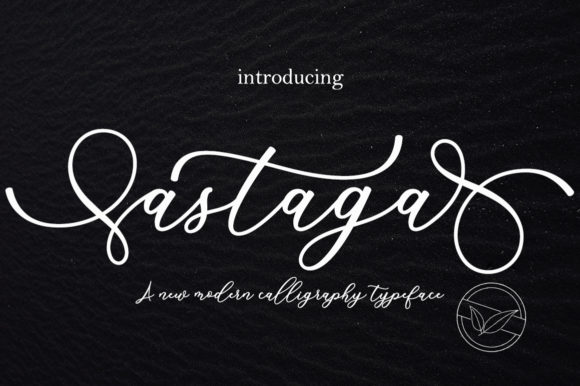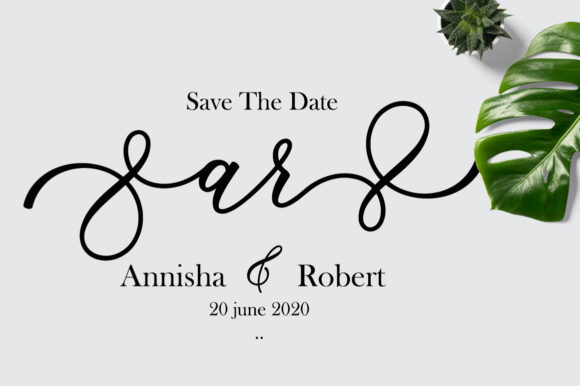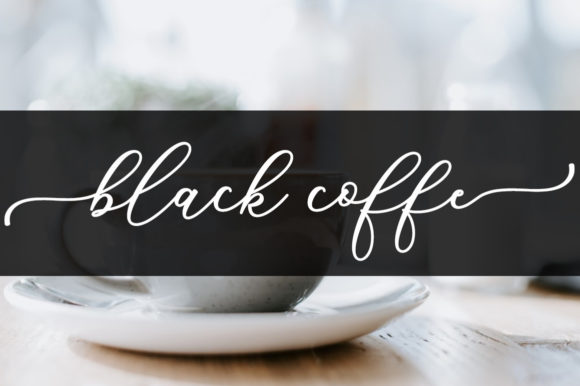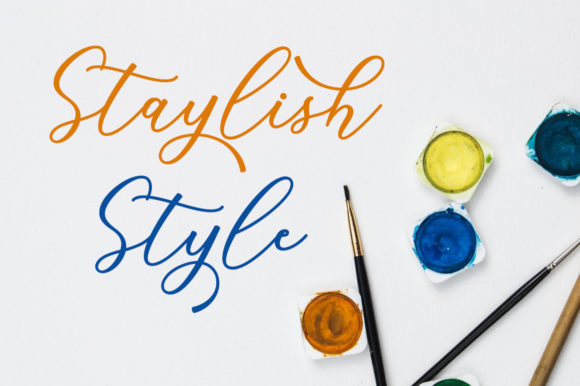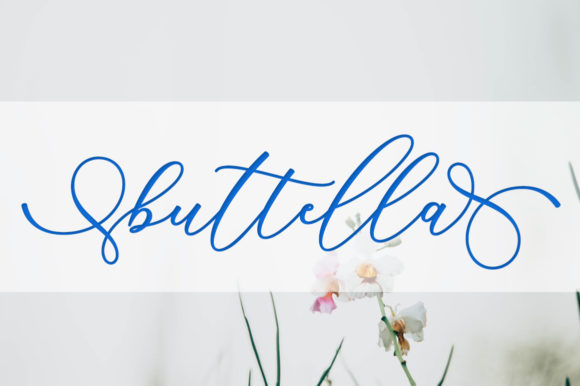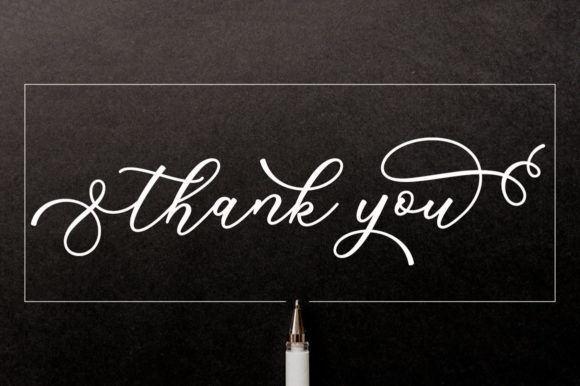
About Astaga Font
Astaga is a modern script font carefully created with a touch of elegance. This is a beautiful combination of timeless elegance and authentic calligraphy.
Fall in love with its authentic feel and use it to create gorgeous wedding invitations, beautiful stationary art, eye-catching social media posts, and cute greeting cards.